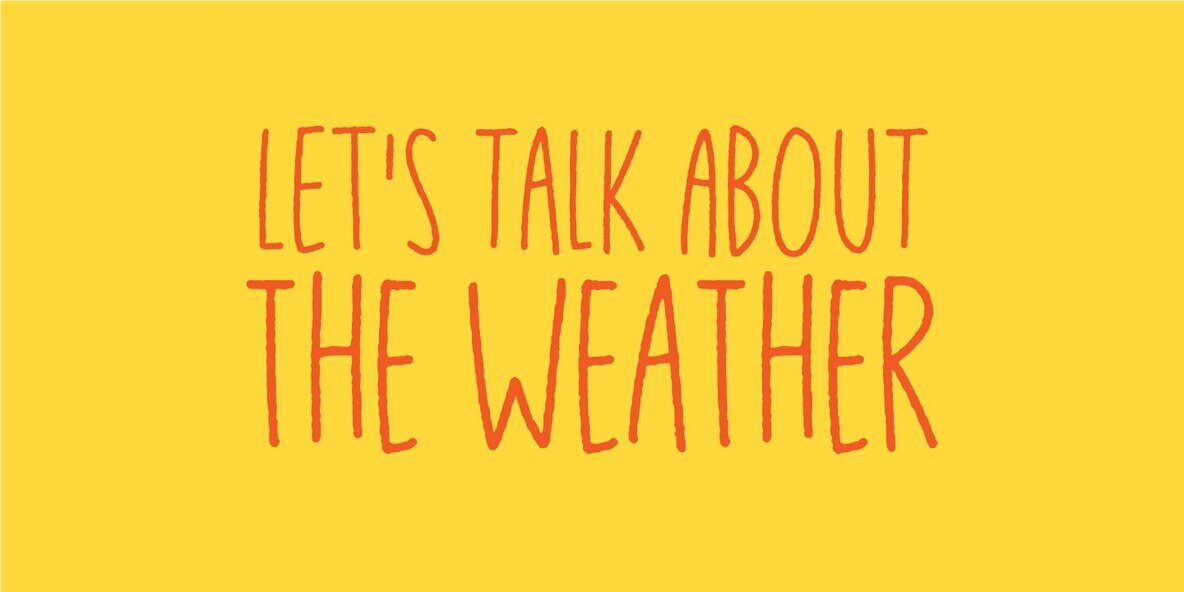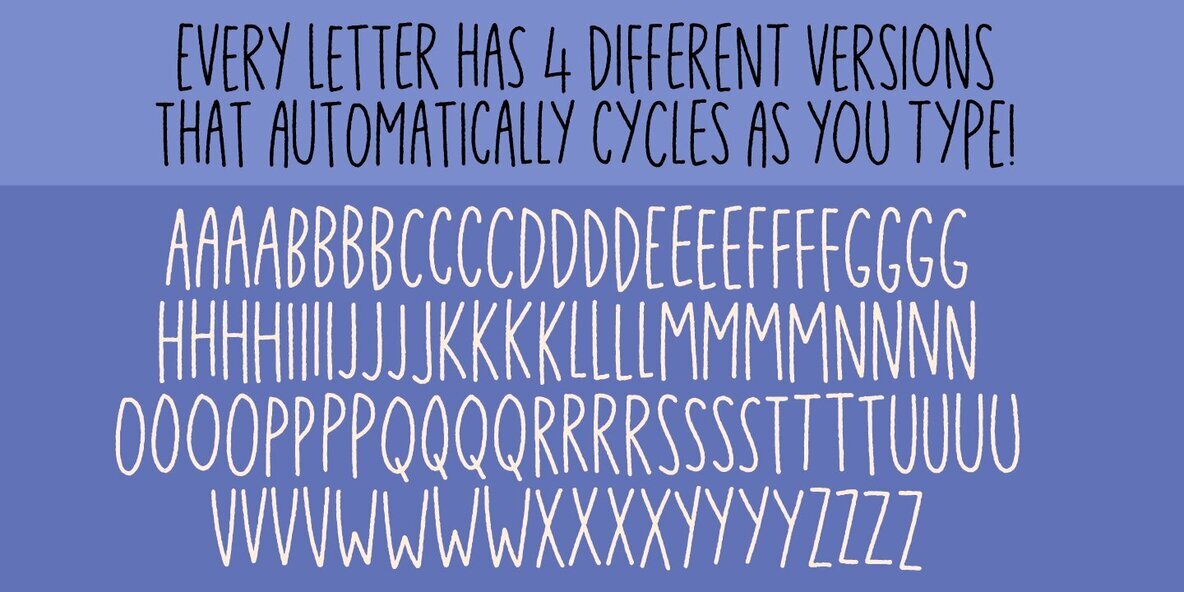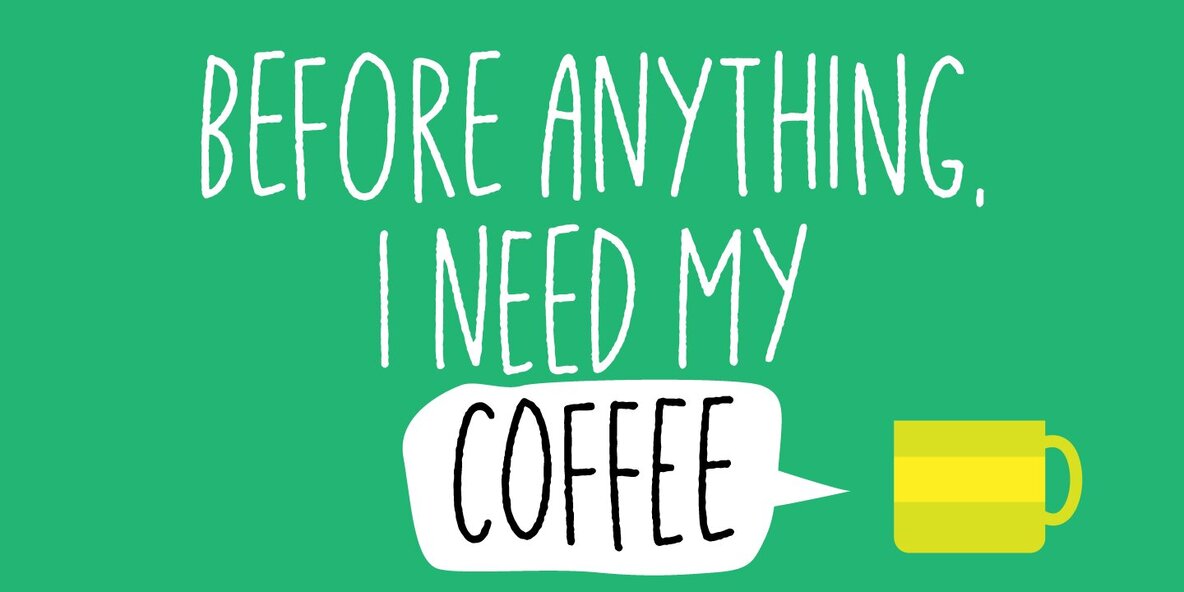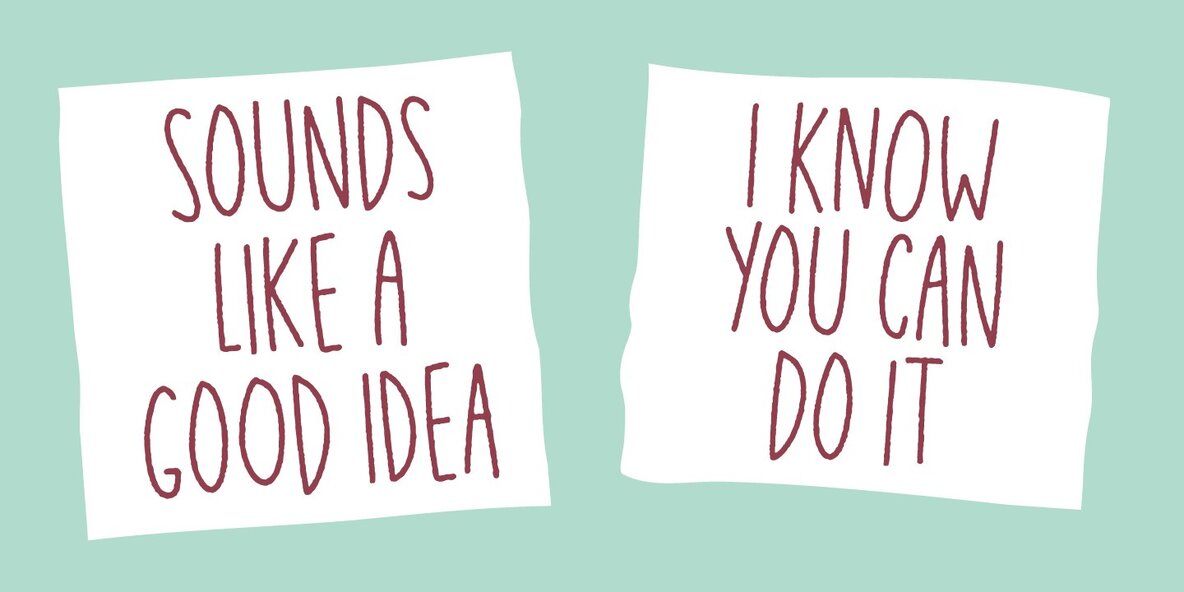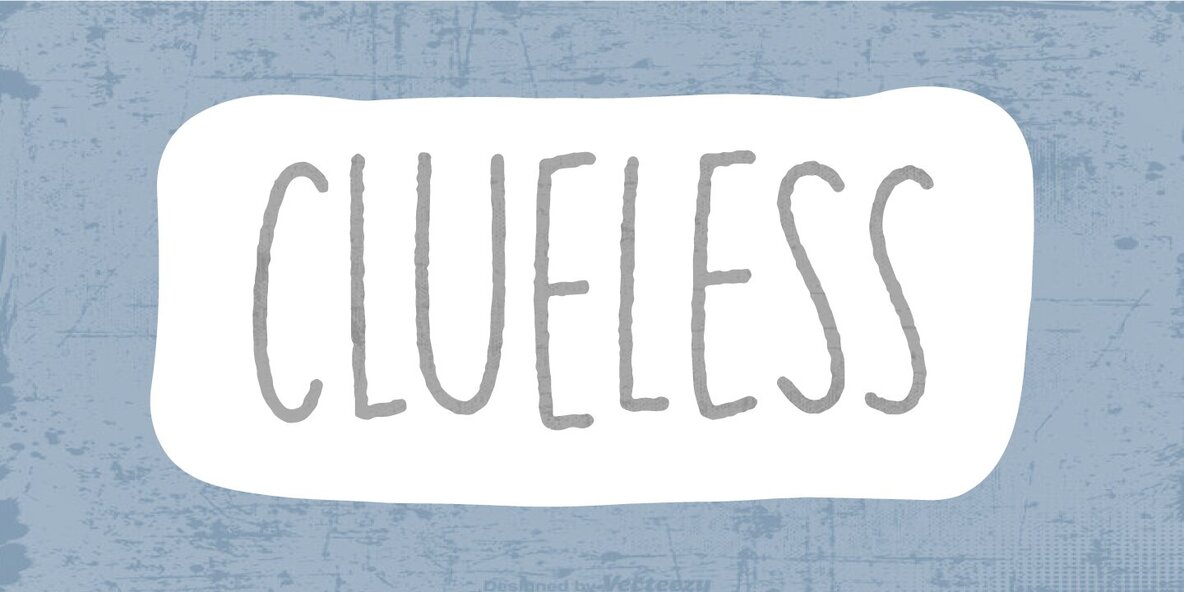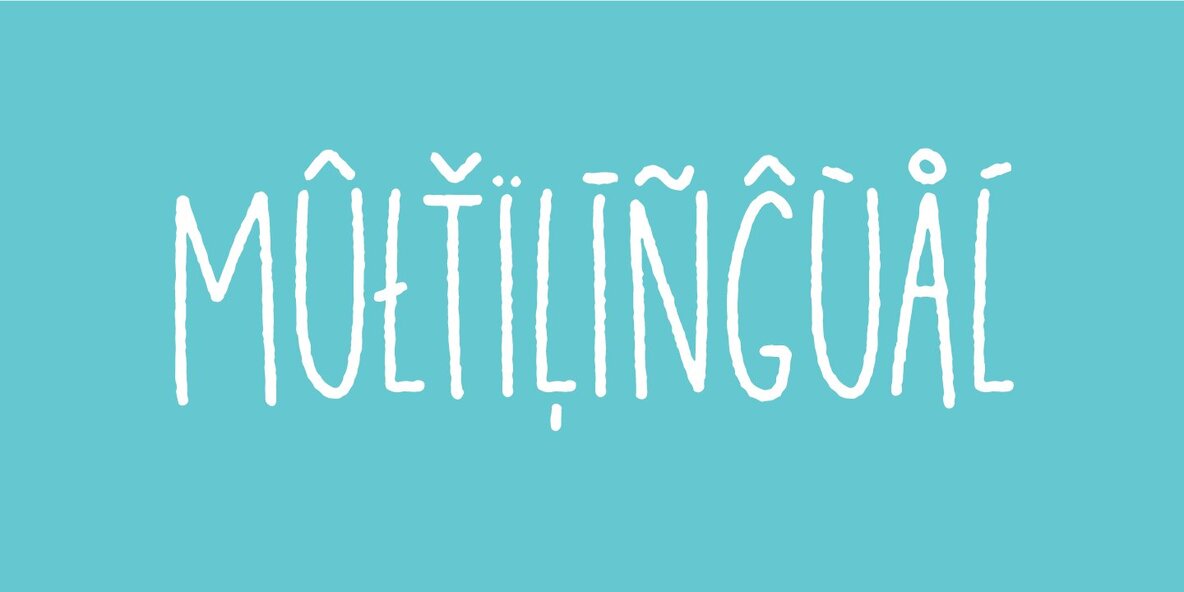
Just in case Font
Just in case Regular
Just in case you need something crispy for your next project - this could be it! Handmade, multilingual and with contextual alternates - 4 different versions of each letter, and these cycle automatically as you write, for a random look.